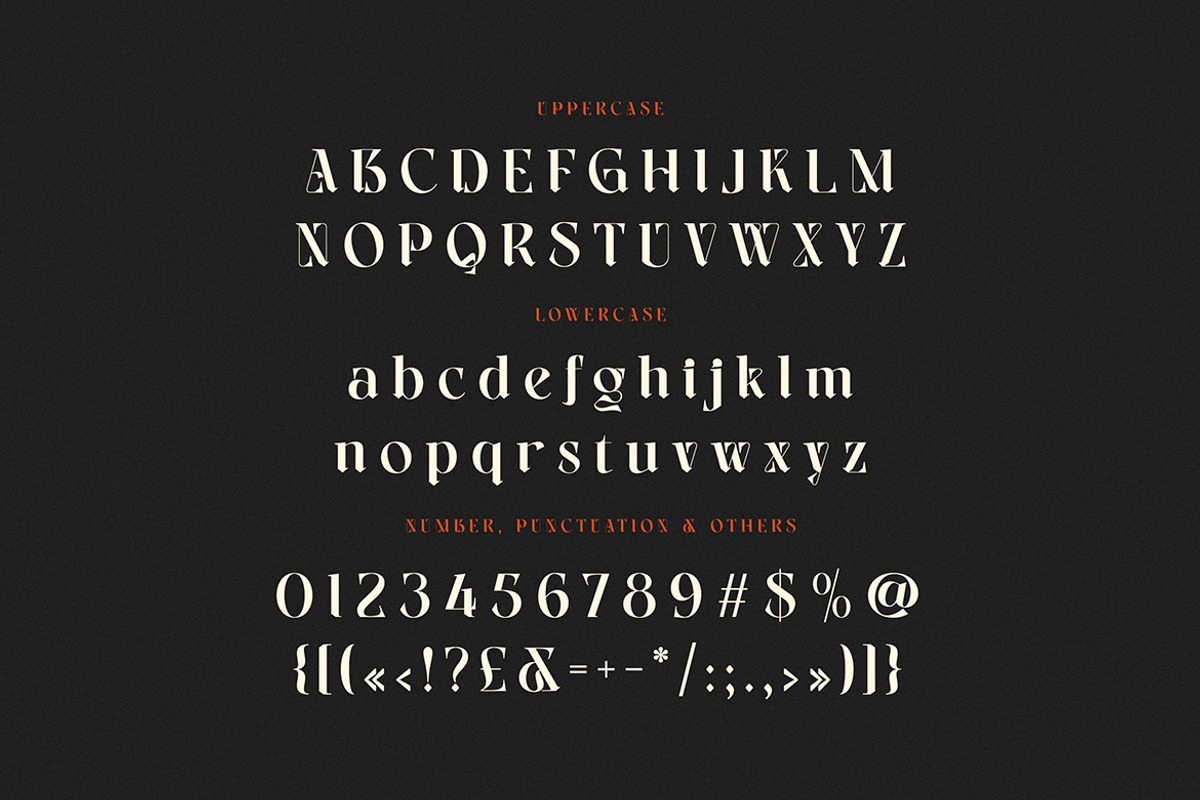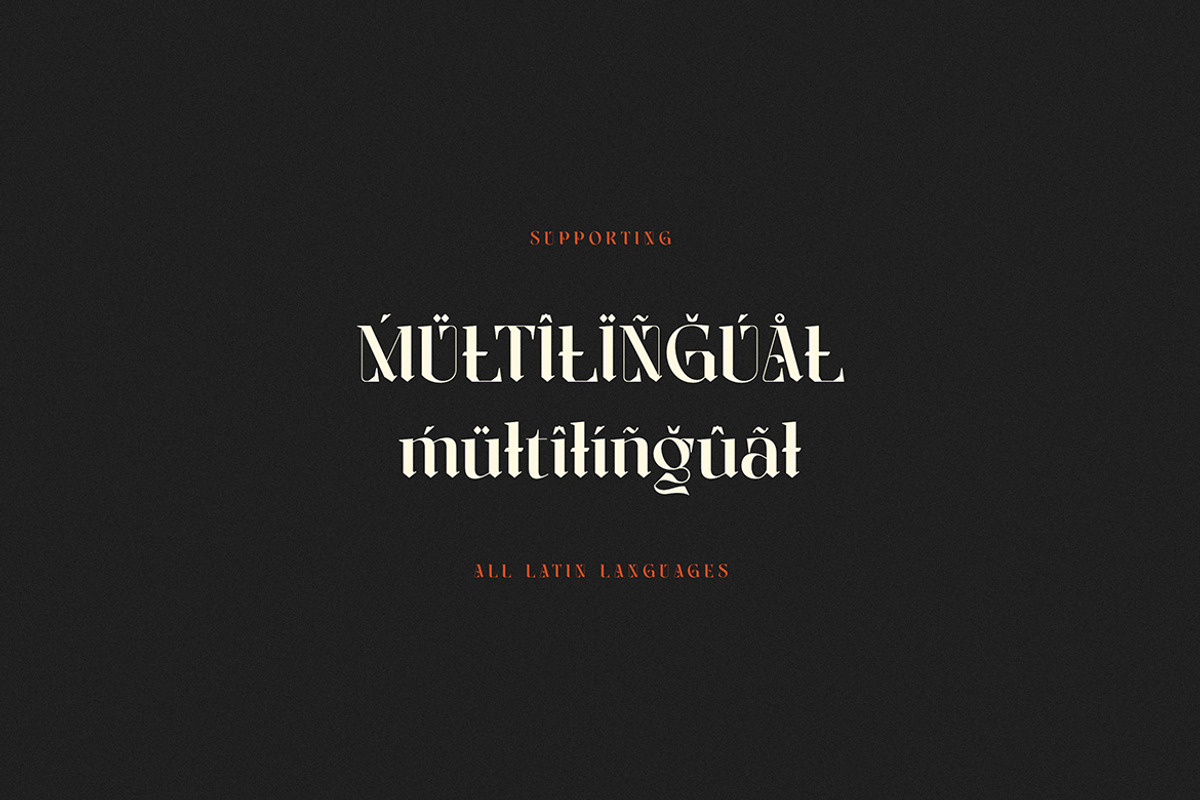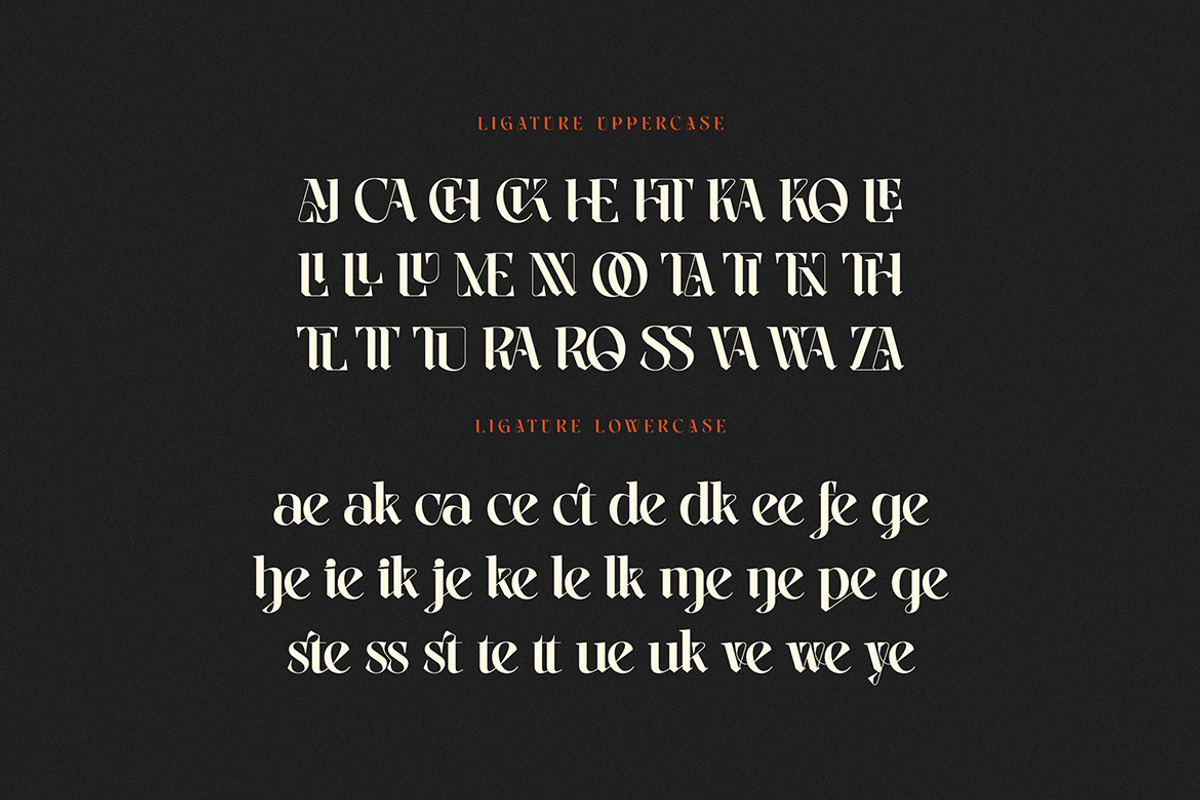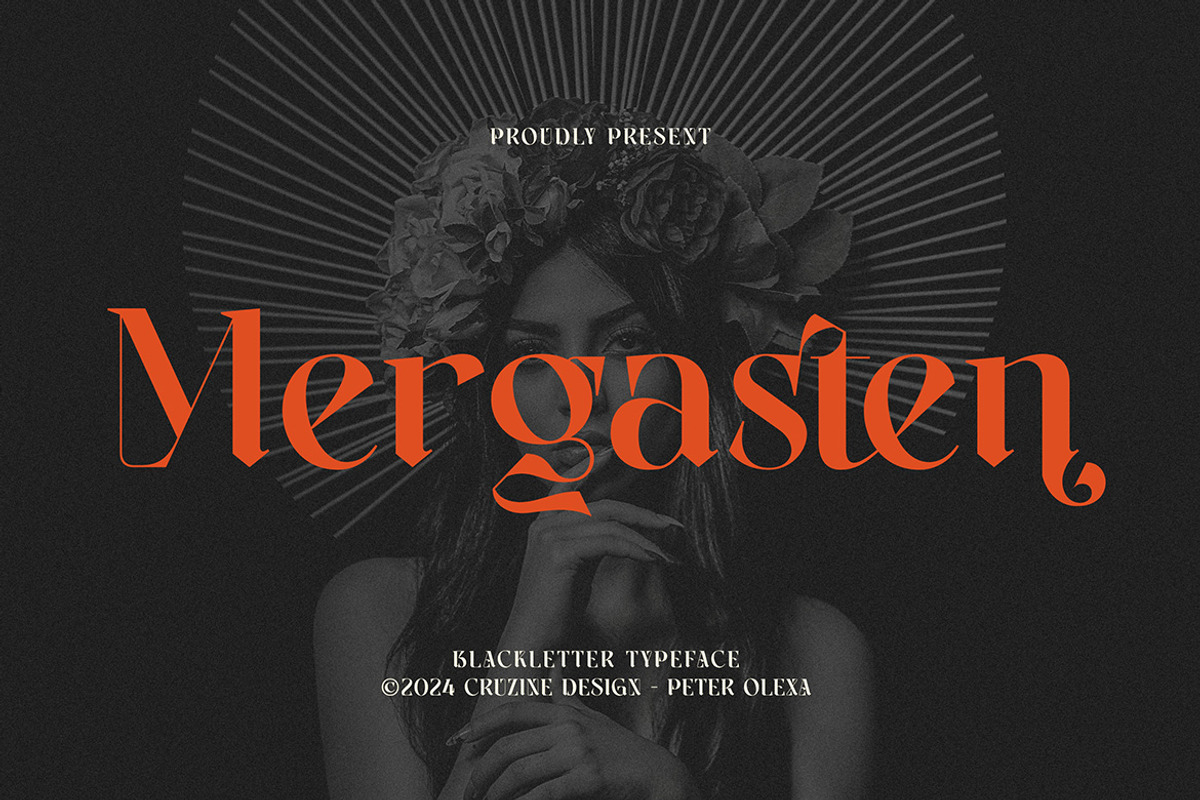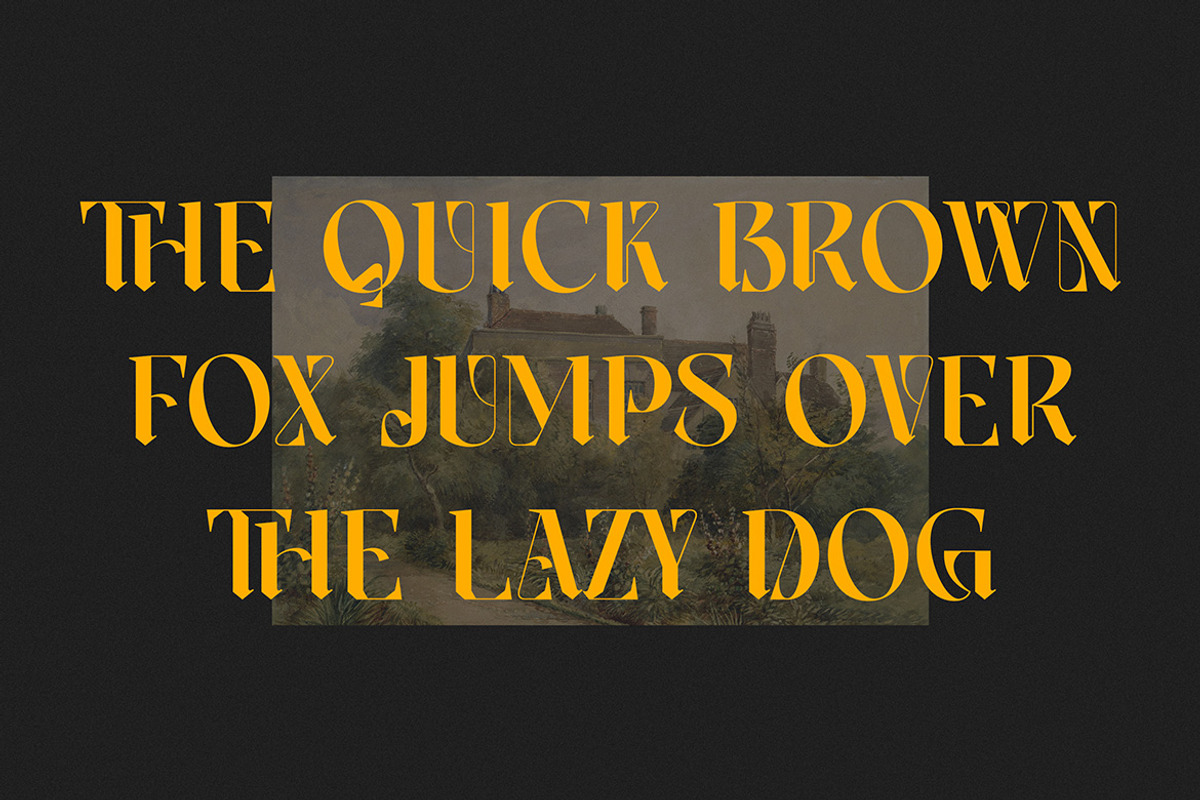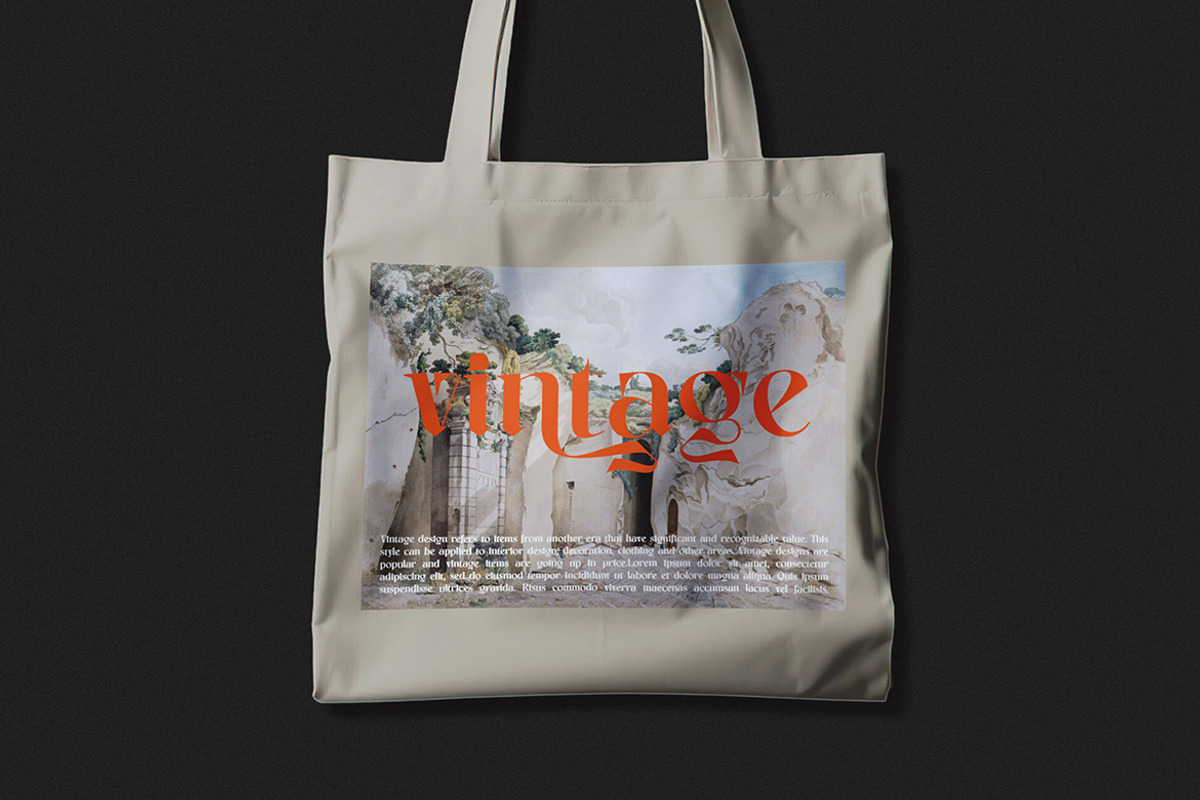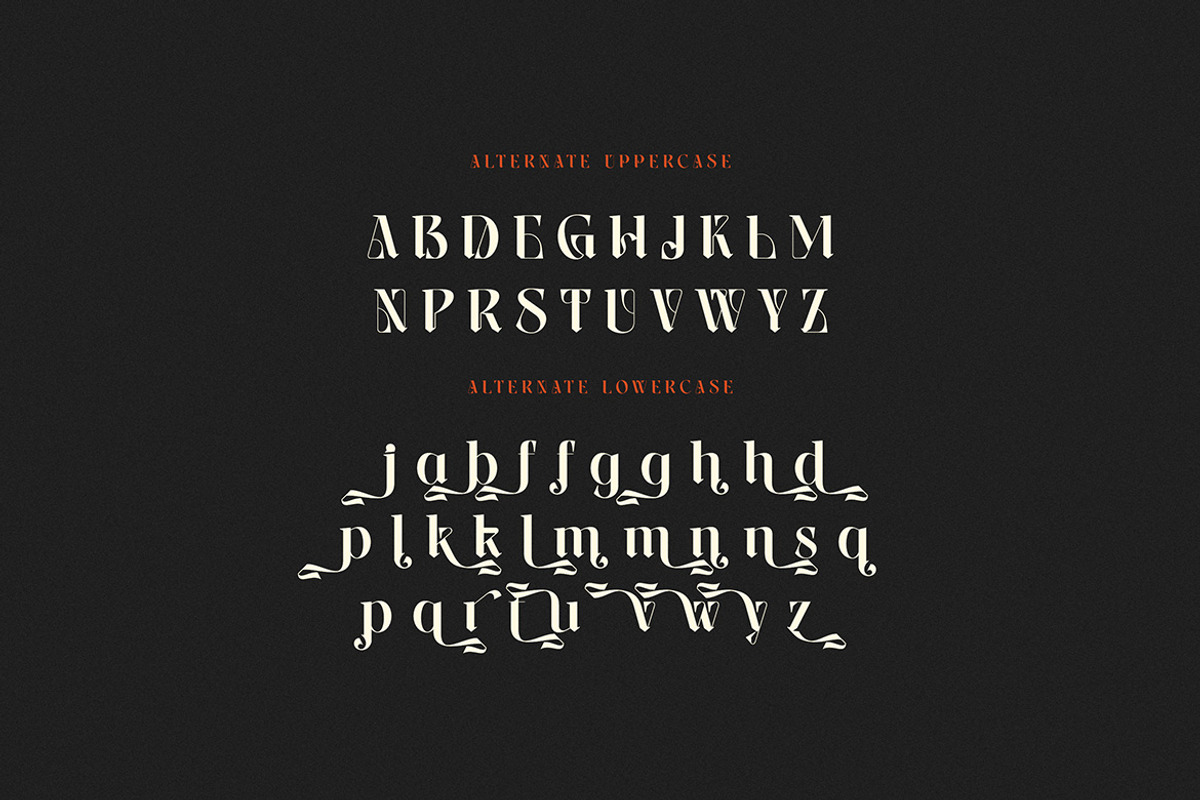
Mergasten Blackletter Serif
Trendy, modern, unique, urban, urban & blackletter serif font for your new creative projects. Stylish, sharp and horror style on Mergasten font will be great for any modern or punk branding project. Lot of alternates and ligatures will help you to create unique and original logo design or website header! Enjoy :)
- Alternate characters & lot of ligatures
- Great for modern branding projects!